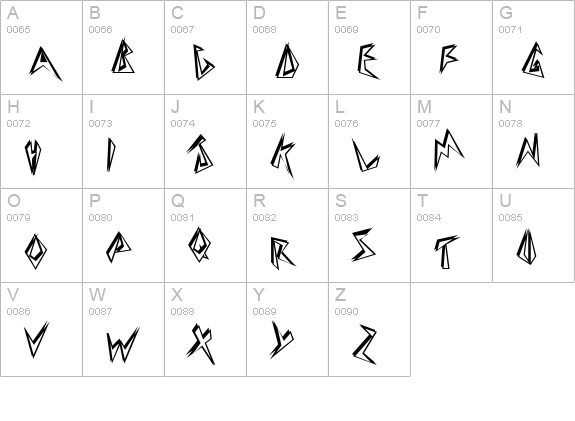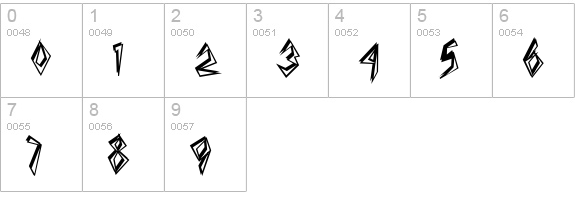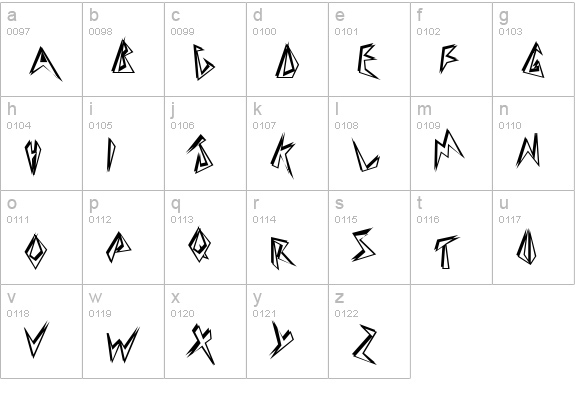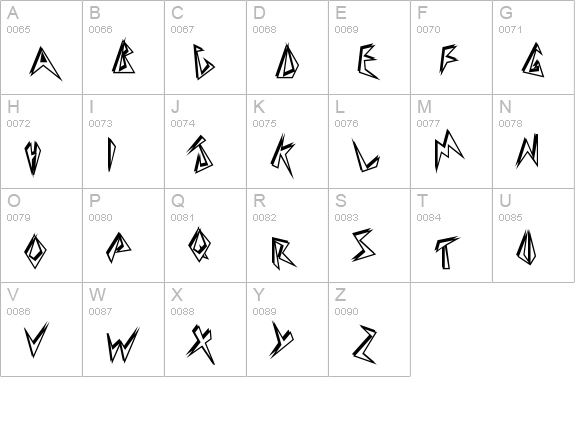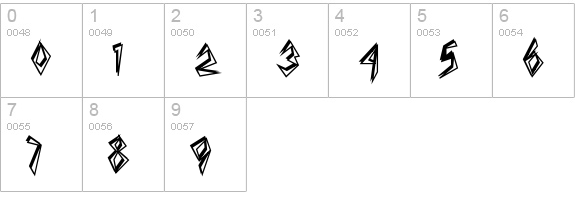
Beeswax T Bold is a strong, high-contrast variant in the Beeswax typeface family \xE2\x80\x94 well suited to headlines, attention-grabbing titles, and strong calls-to-action.
Beeswax T Bold font is a striking and versatile typeface that exudes a sense of strength and sophistication. Its bold and angular letterforms make a bold statement, perfect for headlines, logos, and branding projects. The sharp edges and geometric design give Beeswax T Bold a modern and edgy aesthetic that commands attention. This font is available for free download at FontsMarket.com, making it easily accessible for designers and creatives looking to add a touch of boldness to their projects. Whether used in print or digital designs, Beeswax T Bold is sure to make a lasting impression with its unique style and commanding presence.